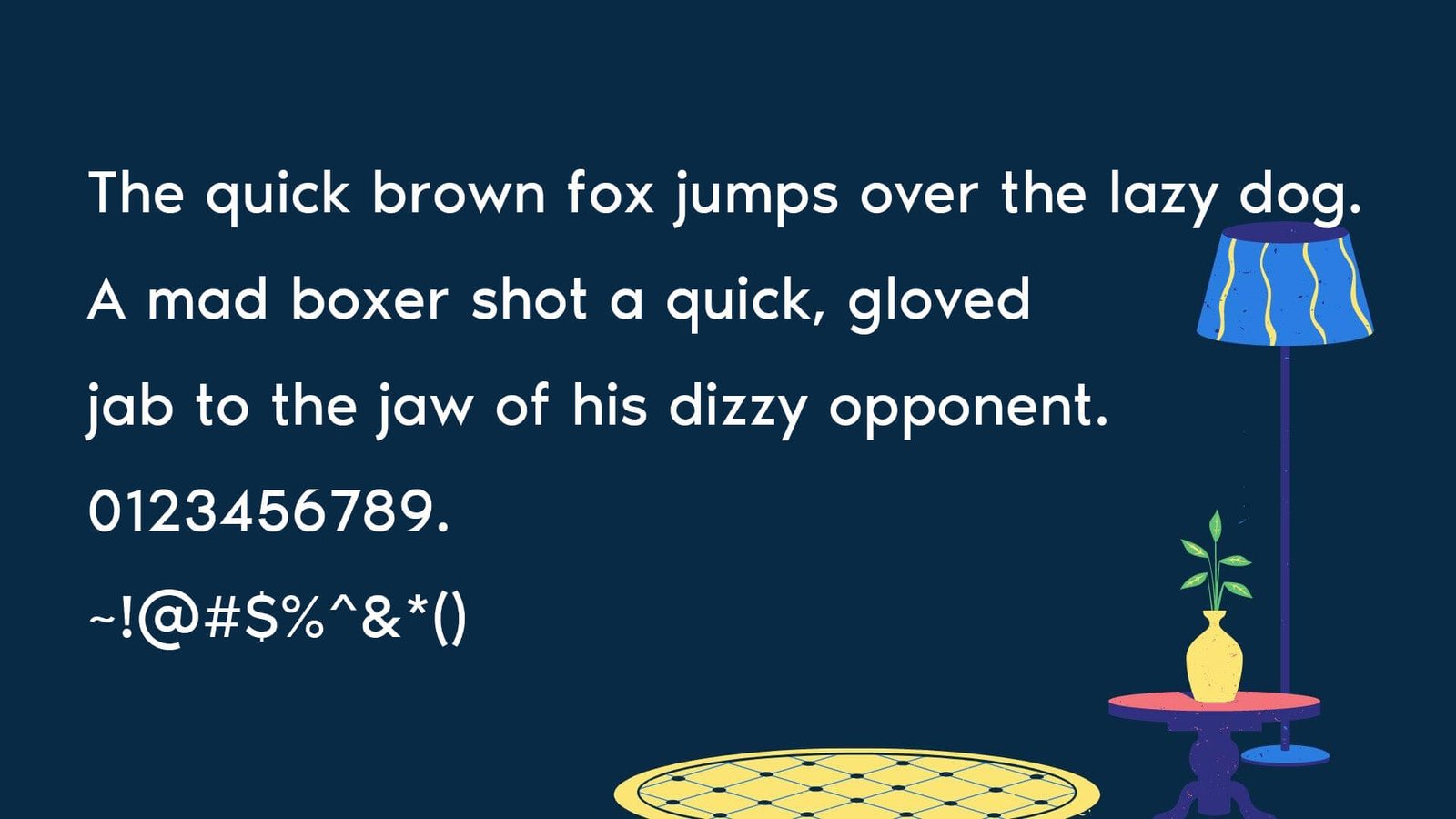
Mattias Guggisberg one of the renowned graphic designers designed the amazing Noir font. He is from Switzerland. It has a very beautiful design. This font is inspired by the geometric typefaces of the 20th century. It has a bold and aesthetic look which makes it an eye-catching font.
Fashion designers prefer to use this classic font in their designs to make them perfect. This font is perfect to use in shirt designing. It is a sans serif typeface. It contains two weights and twelve unique styles for both. This font also has huge language support. TTF and OTF both are file formats that are accessible.
| Name | Noir Font |
| Designer | Mattias Guggisberg |
| Type | Sans Serif |